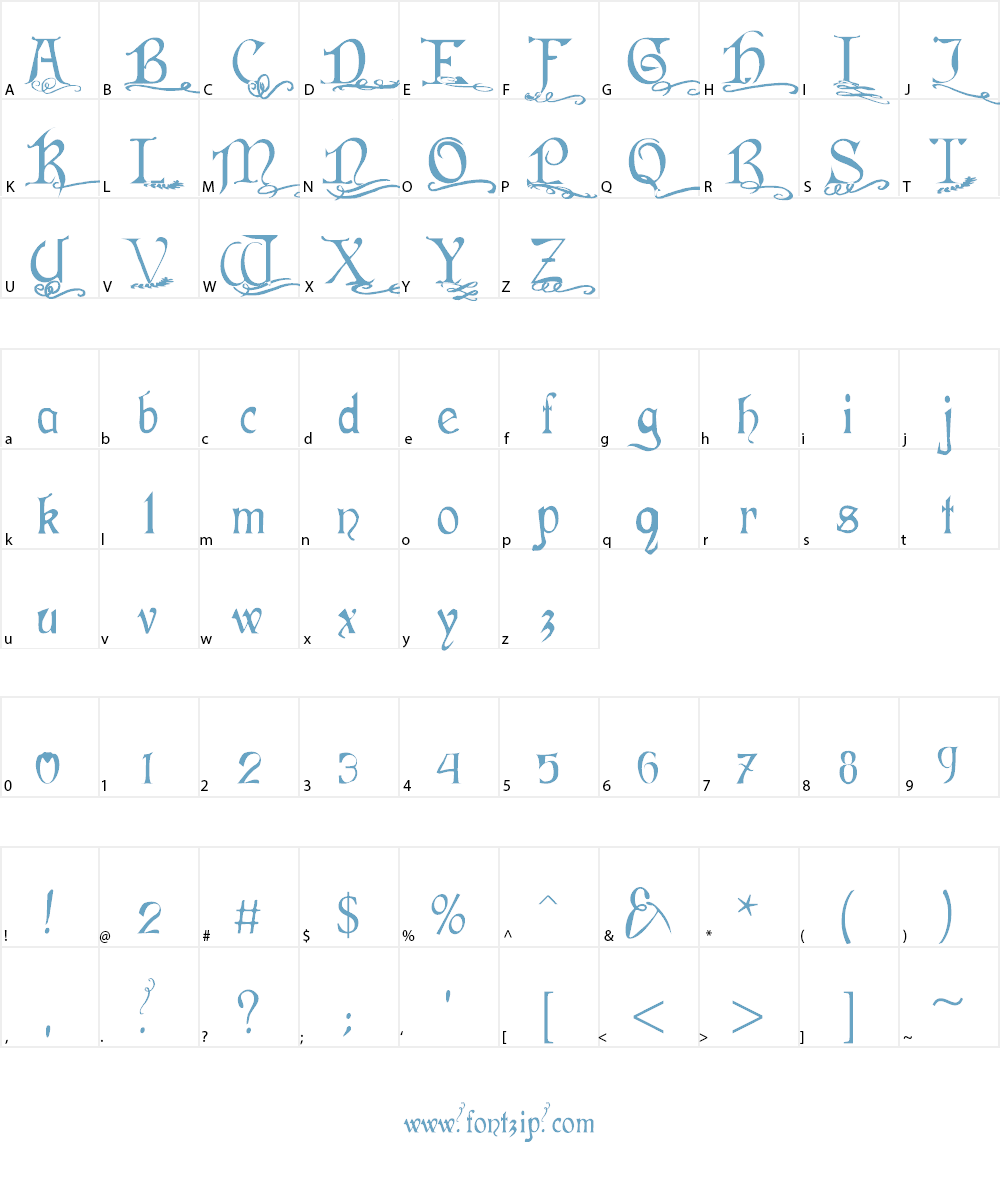
Flourishes and Fancies font is created as a typeface that can be used for formal invitations or just where you want a little something extra. Every capital has a flourish below it and the period has a flourish also. This is a light-weight fancy font, not a lot of whirls and curls. Just a little for show. So use it when you want a little of something special.